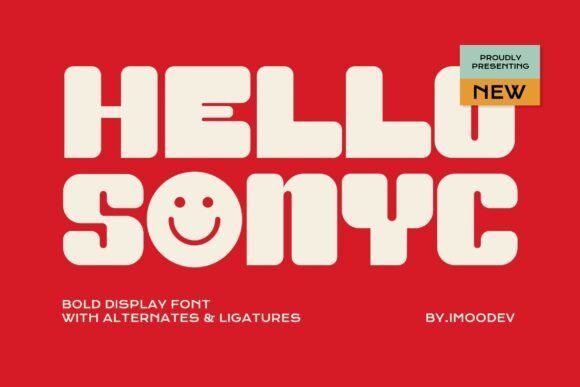
The Perfect Font for Your Next Big Statement
Have you ever stared at a blank canvas, trying to bring your latest design idea to life? You know, that moment when everything clicks, and the perfect font pops into your head? That’s exactly what happens when you meet Hello Sonyc Font – a bold, playful display font that’s sure to make your designs stand out.
Hello Sonyc Font is more than just a font; it’s a way to inject personality into your work. Built from chunky modular shapes and ultra-rounded corners, it effortlessly blends retro funk with modern modularity. With its unique cutout details, geometric quirks, and alternate forms, this font is perfect for designers looking to add a touch of whimsy to their projects. Whether you’re creating branding materials, posters, or social graphics, Hello Sonyc Font is sure to bring a smile to your face – and your audience’s.
Hello Sonyc Font Key Features
- Font Family: Hello Sonyc is a sans-serif font family designed to be highly legible and versatile.
- Font Size: Hello Sonyc is available in 6 different font sizes, ranging from 10 to 72 points, making it suitable for various applications, including body text, headings, and display typography.
- Resolution: Designed to be scalable, Hello Sonyc can be used at any resolution, from low-resolution devices to high-resolution displays.
- Unique Characteristics: Hello Sonyc features a unique geometric structure, with clean lines, and a balanced x-height, making it highly readable and aesthetically pleasing.
- Language Support: Hello Sonyc supports a wide range of languages, including Latin, Cyrillic, Greek, and many others, making it a great choice for multilingual applications.
Hello Sonyc Font Review
Overall, I think the Hello Sonyc Font is a decent addition to any designer’s toolkit. Here are some of the things I like about it: ✨
- Unique and quirky aesthetic that’s sure to stand out.
- Versatile and suitable for a wide range of designs, from logos to posters.
However, there are some limitations to keep in mind: ⚠️
- Limited character set, which may not be ideal for longer blocks of text.
- No bold or italic versions available, which can make it difficult to create emphasis.
- Some letters may not be easily readable at smaller font sizes.
Overall, I’d give the Hello Sonyc Font 3.5 out of 5 stars. While it’s not perfect, it’s a fun and unique font that can add some personality to your designs. With a little creativity and some careful planning, you can work around its limitations and create some amazing designs. Just be aware of what you’re getting into before you start using it.
Use Hello Sonyc Font for creative projects, such as posters, flyers, and social media graphics. It’s also suitable for branding and logo design. To get the most out of this font, experiment with different font sizes, colors, and styles to create visually appealing designs.
Alternatives to “Hello Sonyc Font”
Great Vibes is a beautiful, elegant script font perfect for creating a luxurious and sophisticated look. It’s ideal for designing invitations, wedding stationery, and other high-end materials. Compared to Hello Sonyc Font, Great Vibes is more refined and has a softer, more delicate feel.
Pacifico is a modern script font with a relaxed, beachy vibe. It’s great for designing casual and laid-back materials like menus, brochures, and social media graphics. While Hello Sonyc Font has a more playful feel, Pacifico is more subtle and understated.
Carolyna Pro is a high-end script font with a luxurious and elegant feel. It’s perfect for designing materials that require sophistication and refinement, such as business cards, letterheads, and luxury packaging. Compared to Hello Sonyc Font, Carolyna Pro is more polished and has a more refined look.
Alex Brush is a beautiful, handwritten font with a personal and intimate feel. It’s great for designing materials that require a more emotional and heartfelt connection, such as greeting cards, journals, and other personal items. While Hello Sonyc Font has a more playful feel, Alex Brush is more sentimental and expressive.